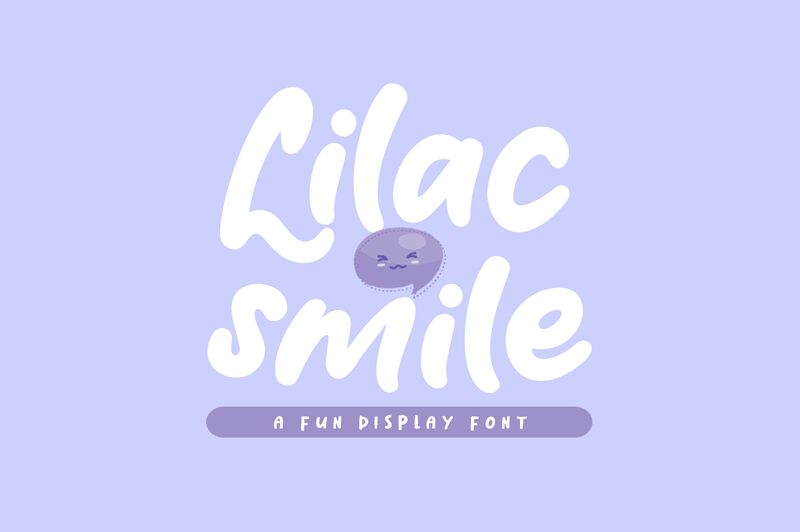
Lilac Smile
Lilac Smile is a bold, fun handwritten font designed by Khurasan & Jalembe. Perfect for adding a playful touch to your projects, it's an ideal choice for posters, greeting cards, invitations and more.